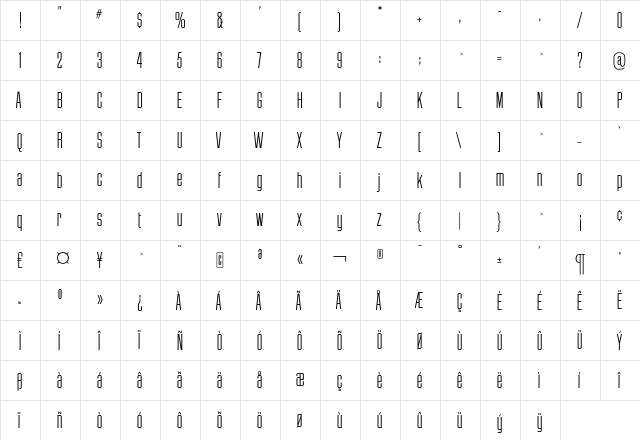
ChamferGothicRR Light
Design Context for ChamferGothicRR Typeface
ChamferGothicRR has the quiet confidence of well-executed sans-serif typography: versatile, unobtrusive, and dependable at any size. The delicate stroke weight brings airiness and refinement to layouts.
A natural fit for high-end product packaging, luxury brand identities, and refined web typography.
Font Pairing: Pair ChamferGothicRR with a medium or bold serif for headlines — the weight contrast creates an elegant, high-end feel.
Pro Tip: Use ChamferGothicRR with generous tracking and line-height for the most luxurious effect — light sans-serifs reward spacious, considered layouts.